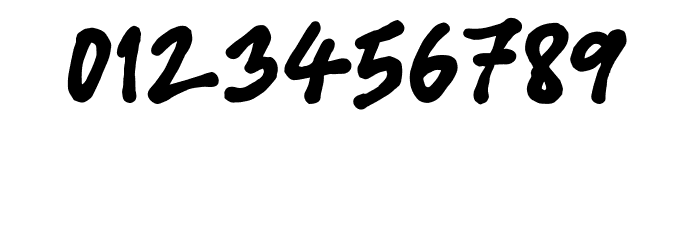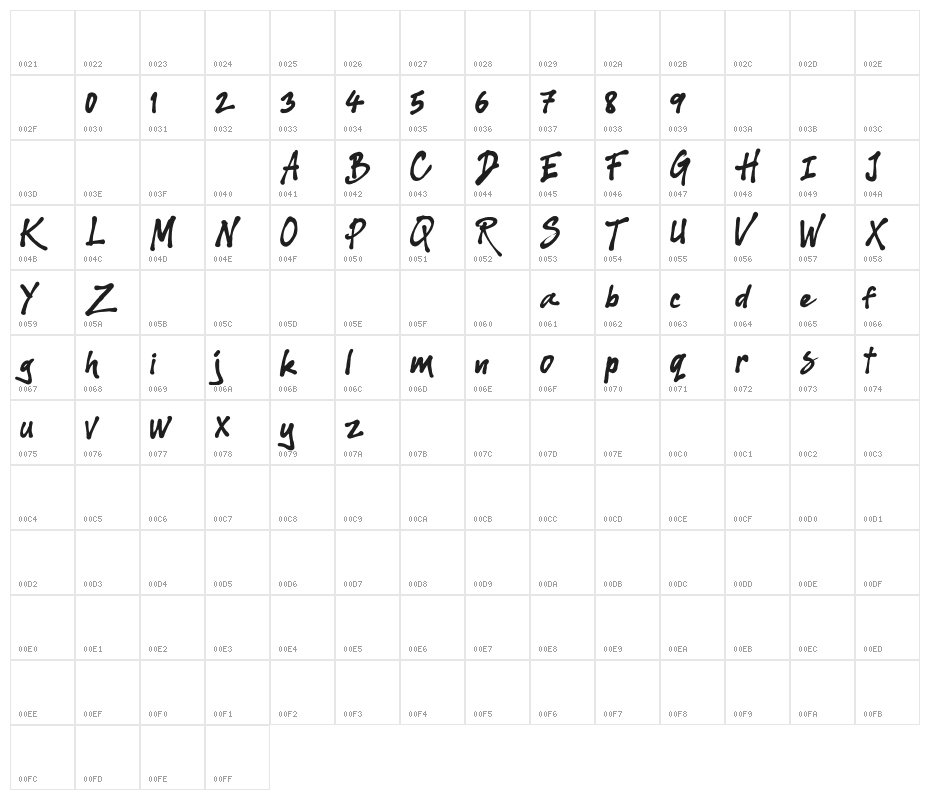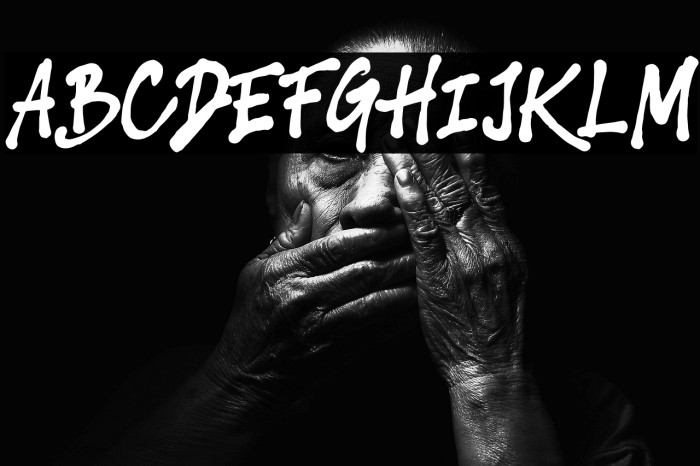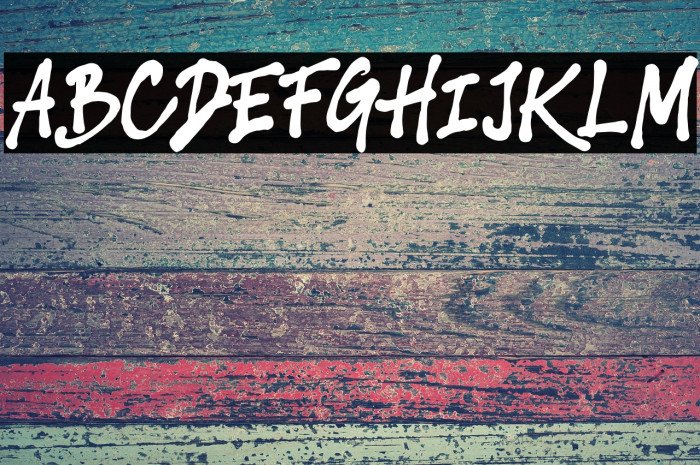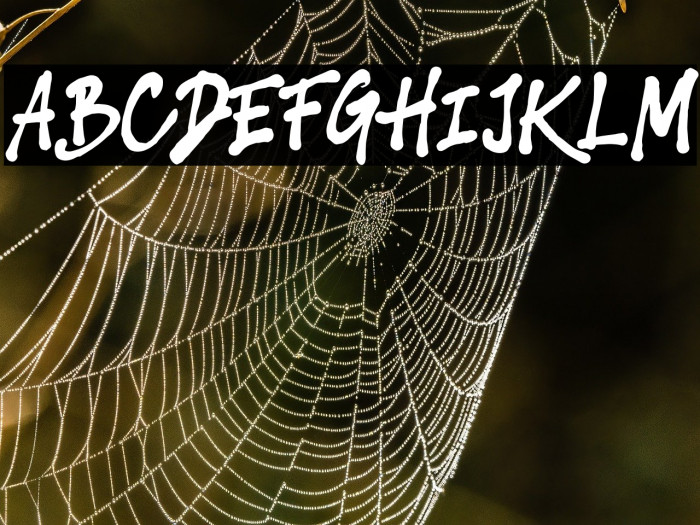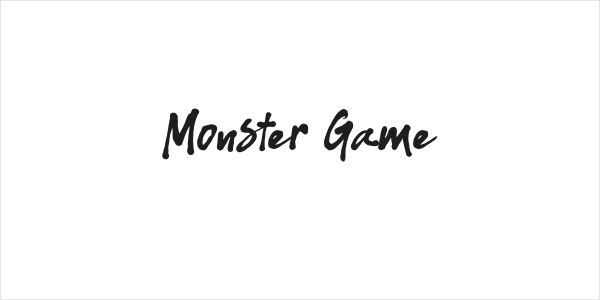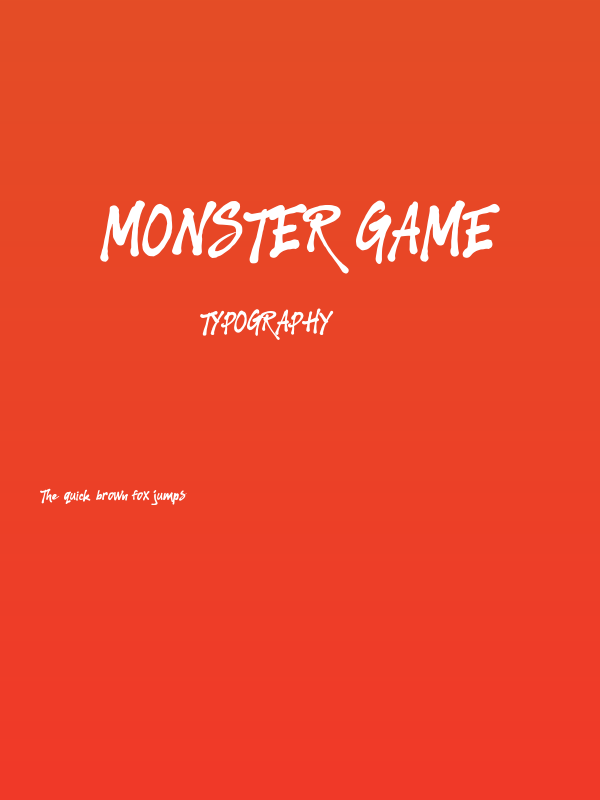
Monster Game Font
Monster Game Description
This font features a bold, energetic style with a handwritten appearance. The letters are dynamic and slightly irregular, giving a sense of movement and personality. The uppercase and lowercase letters maintain a consistent flow, with rounded edges and a playful, casual vibe. Numbers and special characters follow the same lively design, making the font versatile for various creative projects. Its bold strokes and unique character shapes make it stand out, perfect for designs that require a touch of fun and informality.
| Proposed Projects | Ideal for posters, social media graphics, children's books, and branding that requires a fun and informal touch. |